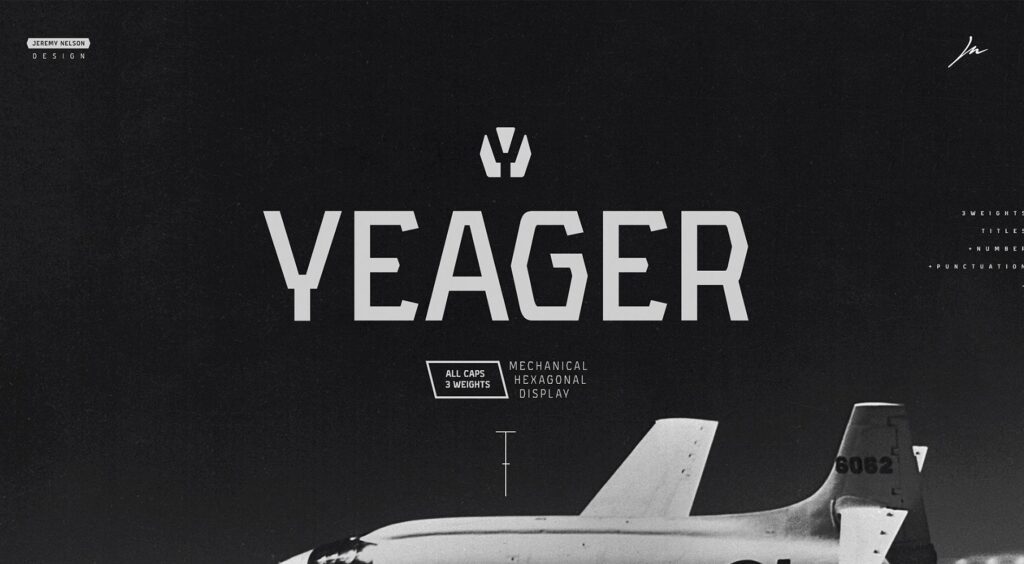
yeager free typeface – First inspired by aboriginal writing systems and tribal typography, Yeager from Jeremy Nelson Design, is characterized by angular strokes and irregular joint placements.
YEAGER Free Typeface